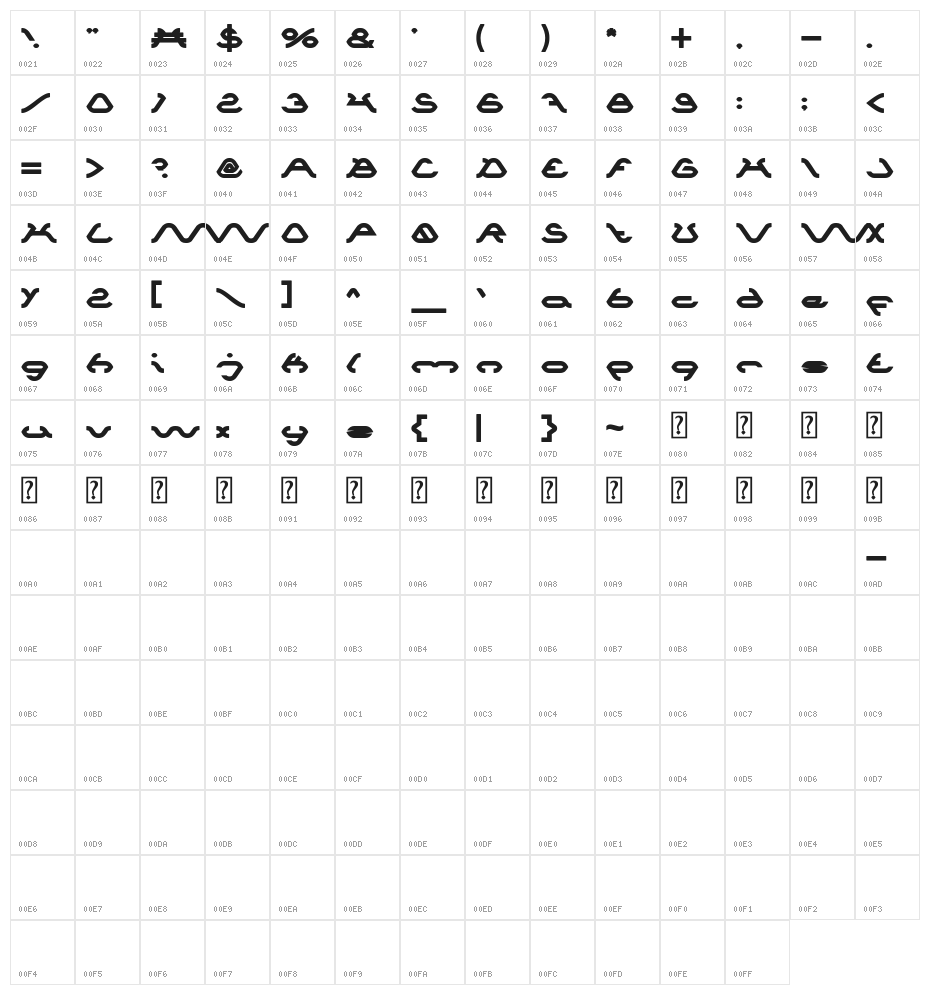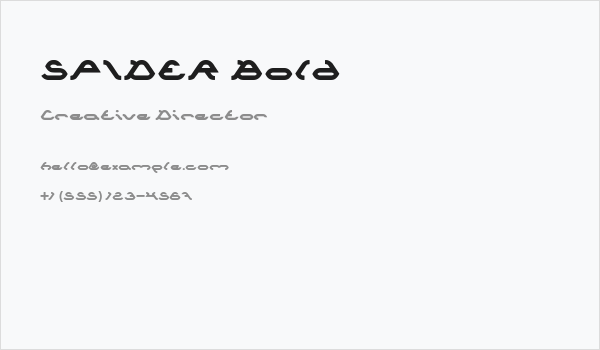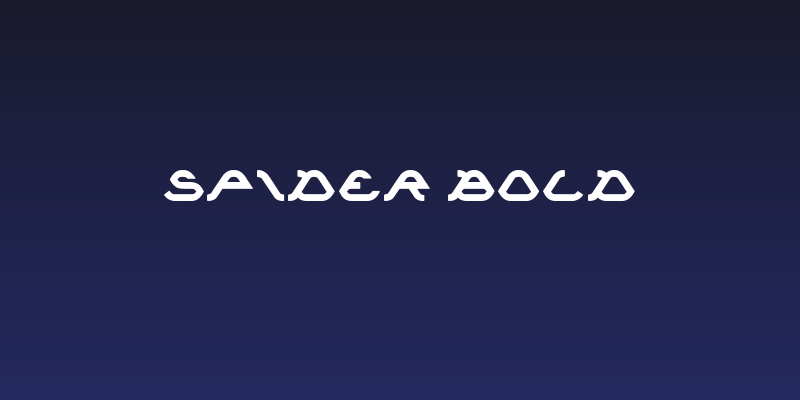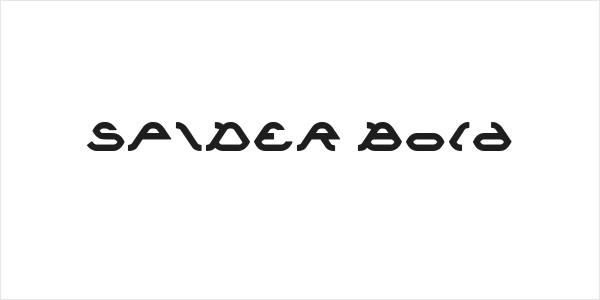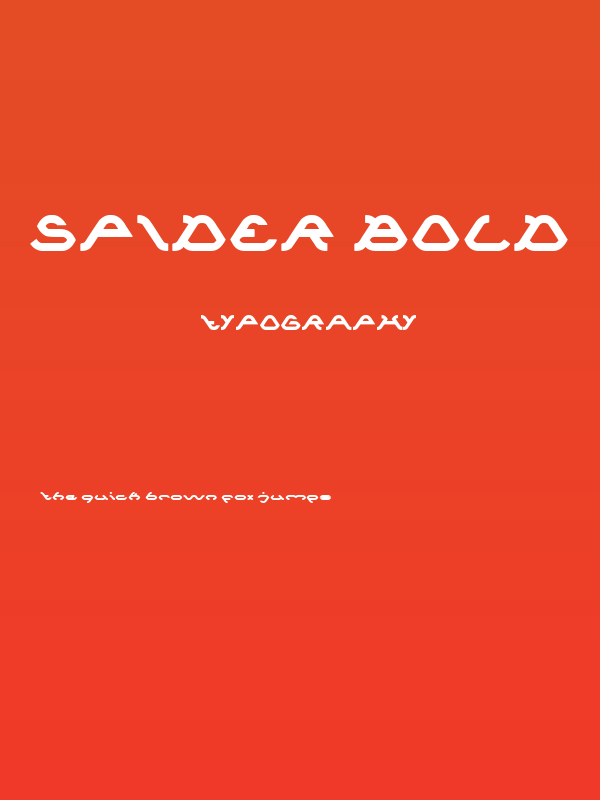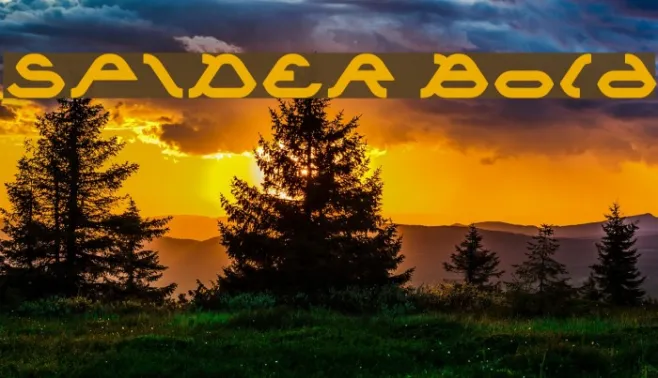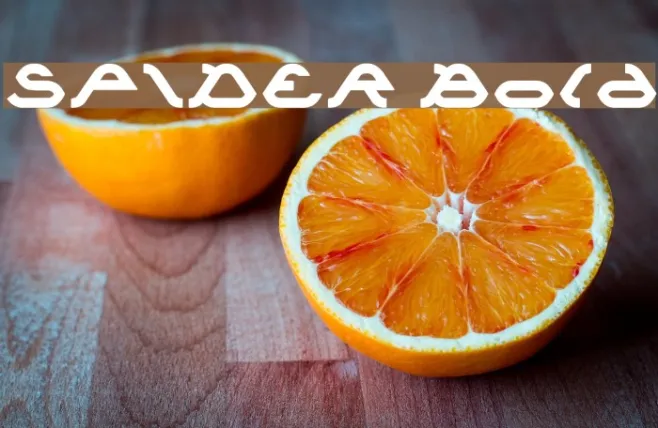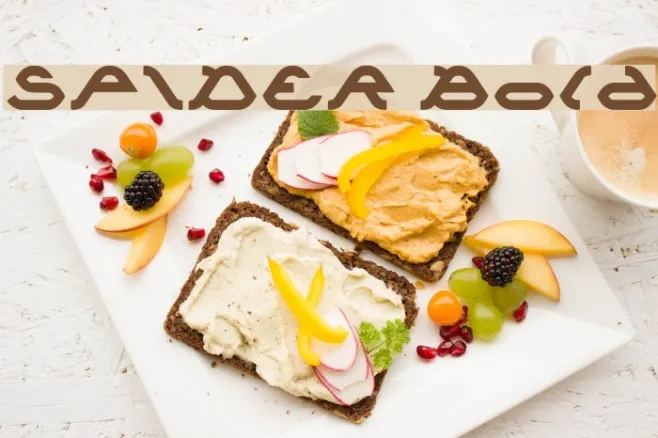
SPIDER Bold Font
SPIDER Bold Description
This font features a bold and futuristic design with a unique, angular style that gives it a modern and edgy appearance. The characters are crafted with a consistent thickness, creating a uniform look across the alphabet. The uppercase and lowercase letters share similar design elements, maintaining a cohesive aesthetic. The numbers and special characters are designed to match the overall style, ensuring visual harmony. This font's distinct appearance makes it stand out, ideal for projects that require a strong visual impact.
| Proposed Projects | Ideal for sci-fi themed designs, video game graphics, movie posters, and branding that requires a modern, edgy look. |